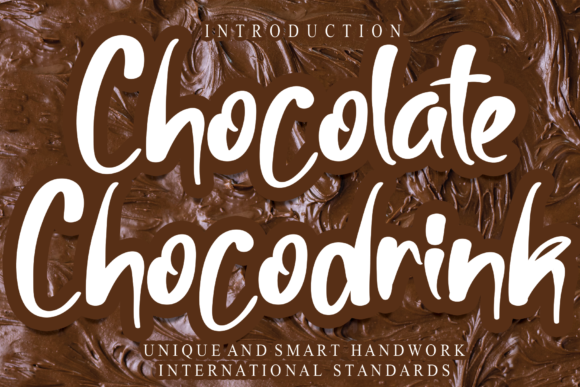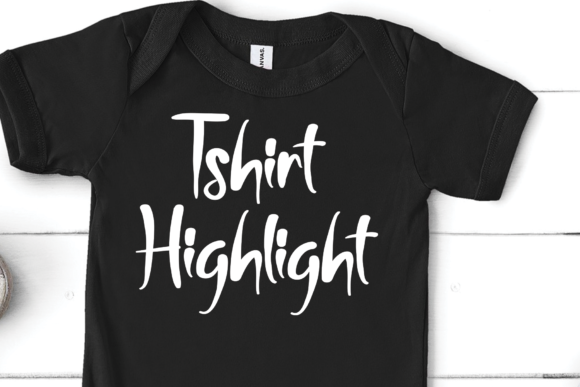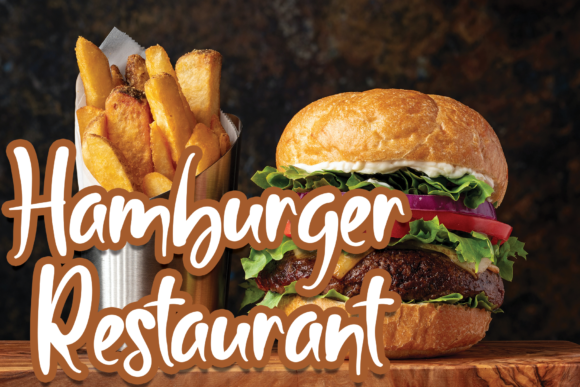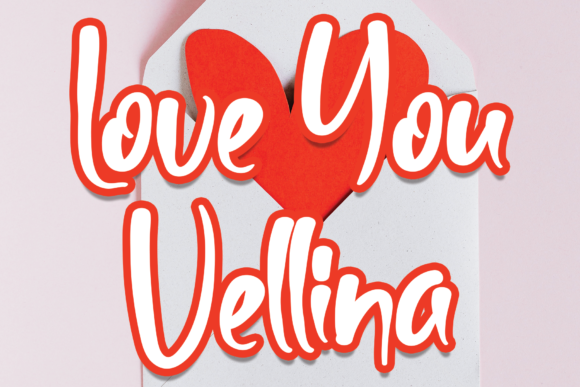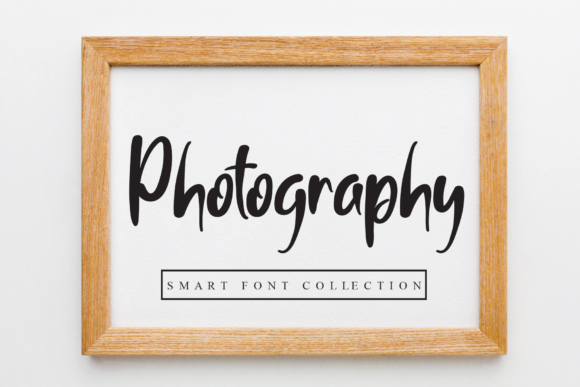
Chocolate Chocodrink Font
About Chocolate Chocodrink Font
Chocolate Chocodrink is a modern handwritten font that is readable, bold and stylish. It is defined by smooth curves and is perfect for fashion branding or editorial designs. Add it confidently to your projects, and you will love the results.